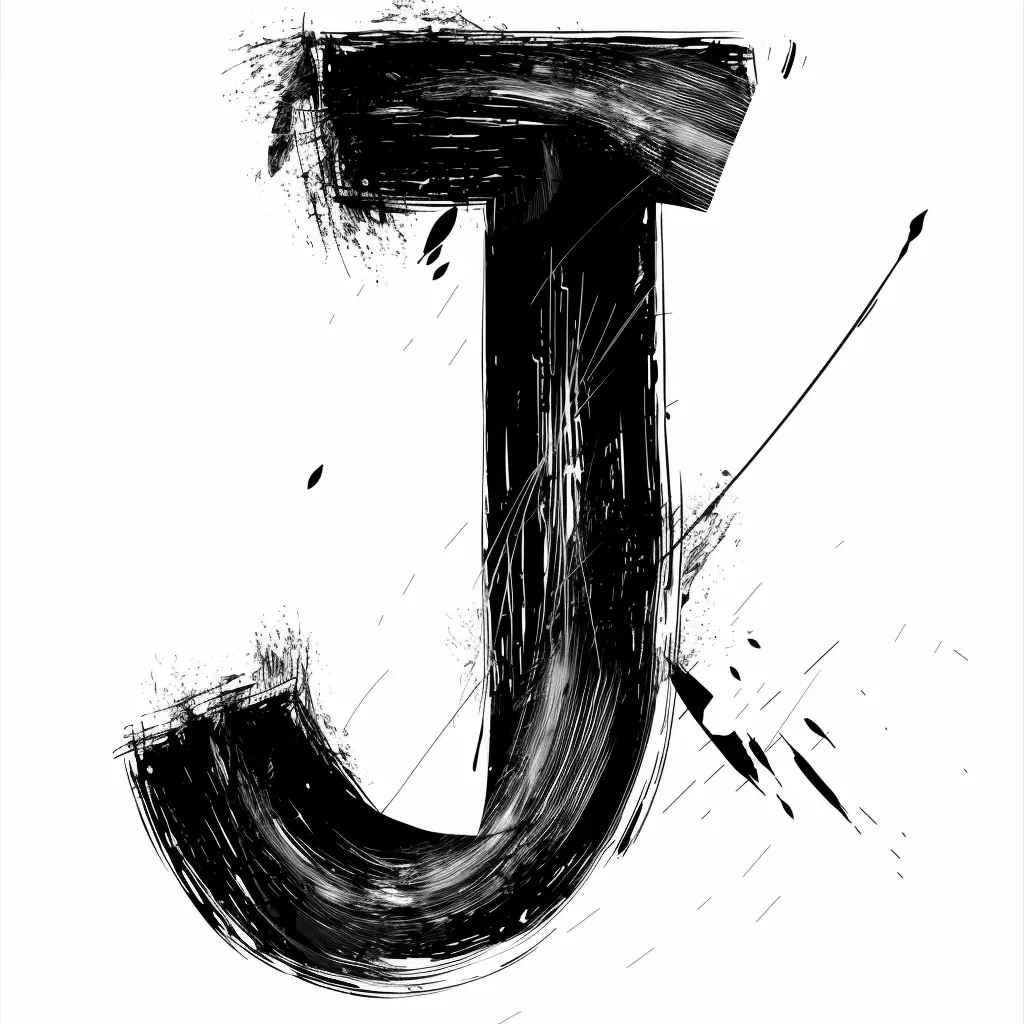
The image features a stylized, black letter "J" rendered in a rough, brushstroke-like artistic style, with visible texture, splatters, and dynamic lines. Set against a plain white background, the design incorporates abstract elements like scattered ink splatters and a diagonal line with a pointed tip, emphasizing a bold, expressive aesthetic.